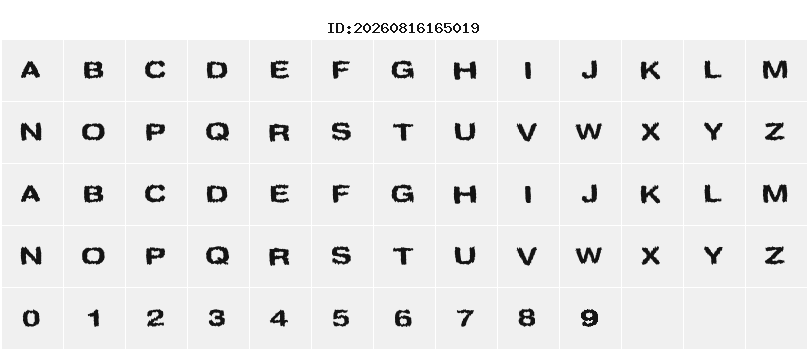
Spookies Preview
• Font Name: Spookies
• Full Font Name: Spookies
• Version: Version 1.00 April 27, 2012, initial release
• Designer: max infeld
• Description: Made at MFA Studios in chico,california
About Spookies.ttf
Spookies.ttf is a modern, elegant sans-serif font designed for ultimate readability and visual harmony. Perfect for branding, headlines, web design, and print materials.